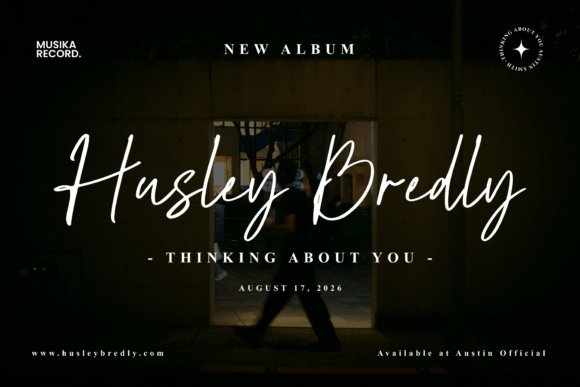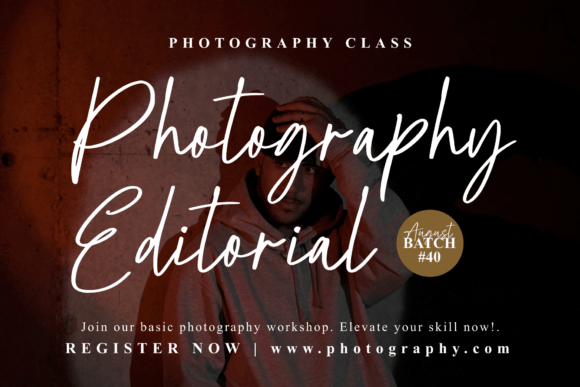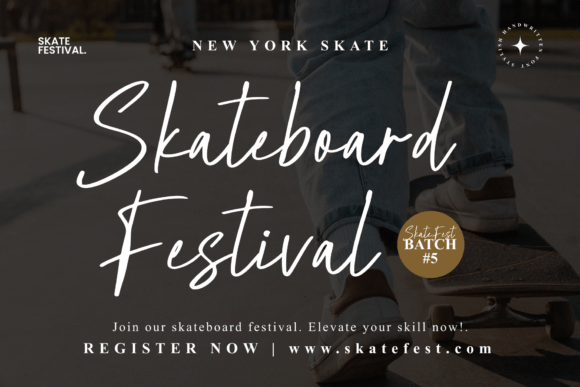
Introduction to Amsterdam Siganture Font
Have you ever been stuck on a creative project, scrolling through endless design resources, searching for that perfect font to elevate your work? I’m sure many designers can relate to this moment of frustration, but what if I told you that there’s a font that could change everything? Meet the Amsterdam Siganture Font, a stunning handwritten font that’s sure to capture your heart and inspire your creativity.
This beautiful font is ideal for logos, wedding stationery, photography watermarks, and modern websites, making it a valuable asset for any designer. With its incredibly distinct and timeless style, the Amsterdam Siganture Font is perfect for creating spectacular designs that stand out from the crowd. Whether you’re a seasoned pro or just starting out, this font is a must-have in your design arsenal.
Key Features of Amsterdam Siganture Font
- Unique, high-quality design perfect for creative projects and design resources.
- Designed to be highly legible and versatile, making it an excellent choice for a wide range of creative projects.
Honest Review: Amsterdam Siganture Font
As a designer, I’ve had the chance to work with numerous fonts, but the Amsterdam Siganture Font caught my attention due to its unique and stylish aesthetic. I decided to dive deeper and see if it’s a suitable design resource for my creative projects.
- ✨ High quality design: The font features a clean and elegant design that’s perfect for creating a sophisticated look.
- ✨ Versatile: The Amsterdam Siganture Font can be used for a wide range of creative projects, from business cards to digital signage.
- ⚠️ Limited font sizes: The font is only available in a limited range of font sizes, which may not be suitable for all design needs.
- ⚠️ Limited customization options: The font is a bit limited in terms of customization options, which may not appeal to designers who prefer a high degree of flexibility.
Overall, the Amsterdam Siganture Font is a solid addition to any designer’s toolkit. While it may have some limitations, its high quality design and free download make it an excellent resource for creative projects. I’d definitely recommend it to designers who are looking for a stylish and versatile font.
The Amsterdam Siganture Font is perfect for a variety of applications, including logos, business cards, invitations, and social media graphics. Its elegant design makes it a popular choice for designers seeking a high-quality, free download font.